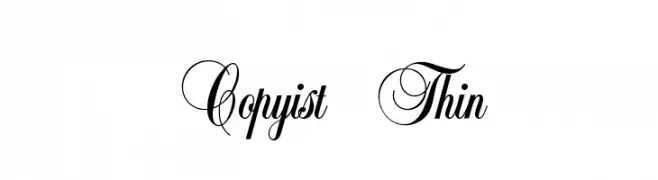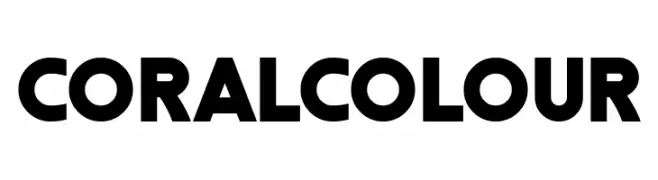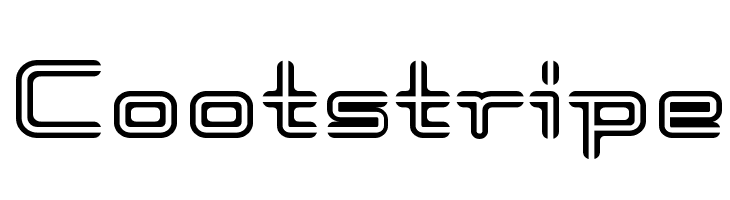
A futuristic, geometric font with a double-line structure and modern appeal.
A bold, geometric font with sharp angles and a three-dimensional effect.
A bold, handwritten font with a playful and casual style.
A fragmented and artistic font with a bold, dynamic style.
A bold, geometric font with a modern, industrial feel.
A bold, outlined font with a modern and playful style.
An elegant script font with thin, flowing strokes and intricate loops.
A bold, geometric font with uniform stroke widths and a modern aesthetic.
A whimsical and decorative font with imaginative, storybook-like characters.
A bold, rounded font with a playful and robust style.